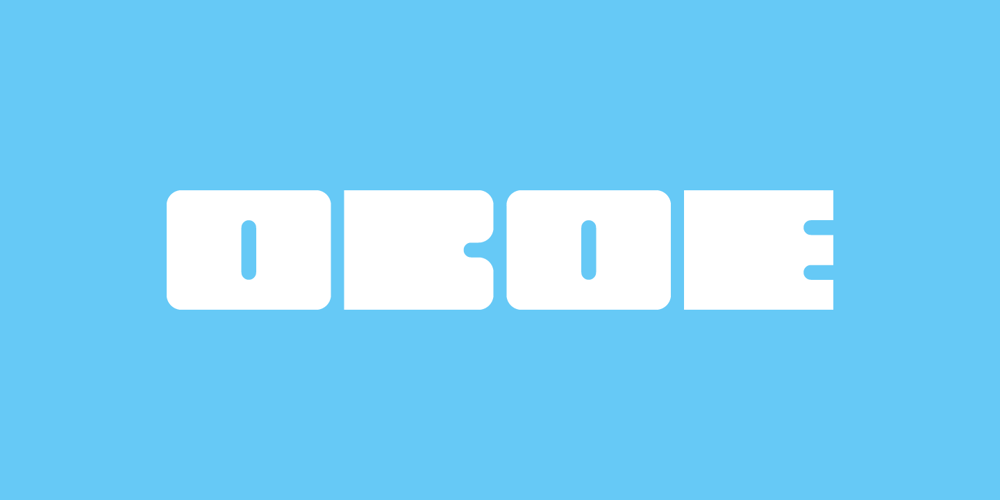
Oboe
Oboe font
Oboe Font Family was designed by Pablo Balcells and published by Graviton. Oboe contains 6 styles and family package options. Oboe font family has been designed for Graviton Font Foundry by Pablo Balcells in 2012. It is display typeface with a geometric rounded look. Oboe consists of 6 styles, 2 of which are free.